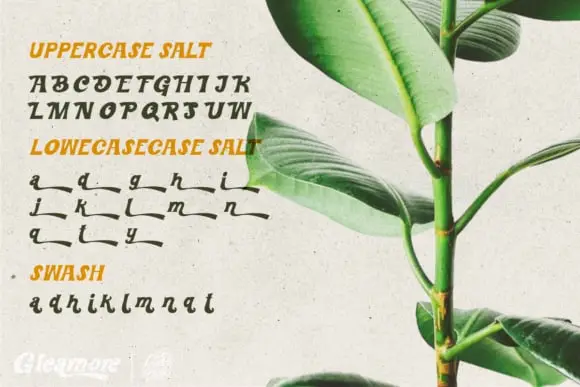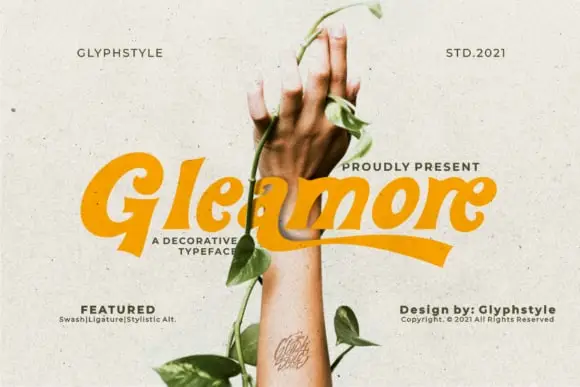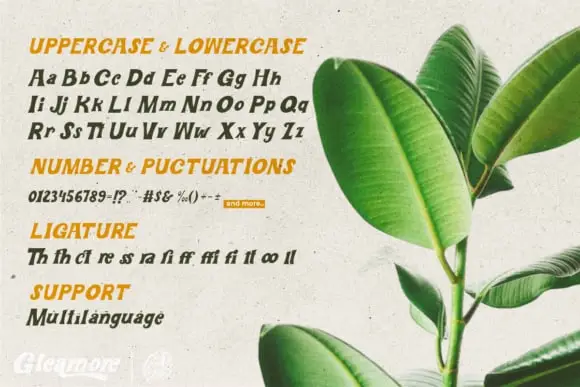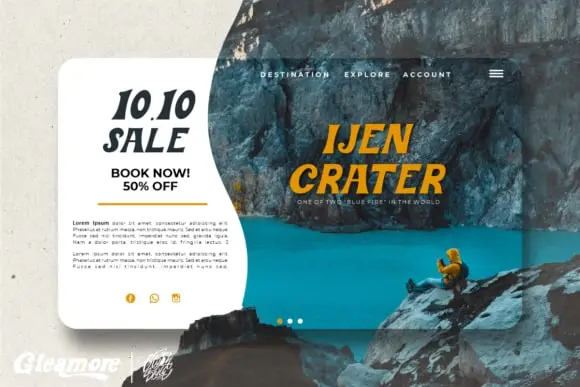
The Gleamore Font is a beautifully crafted typeface that brings a touch of elegance to your design projects. With its unique blend of modern and classic styles, this font is perfect for a variety of applications.
- Stylish and contemporary design
- Uppercase and lowercase letters
- Numerals and punctuation included
- Styles: Regular, Bold, Italic
This font is ideal for branding, logos, web design, print materials, and user interfaces. Its versatile nature allows it to be used in both digital and print formats, making it a great addition to your design toolkit.